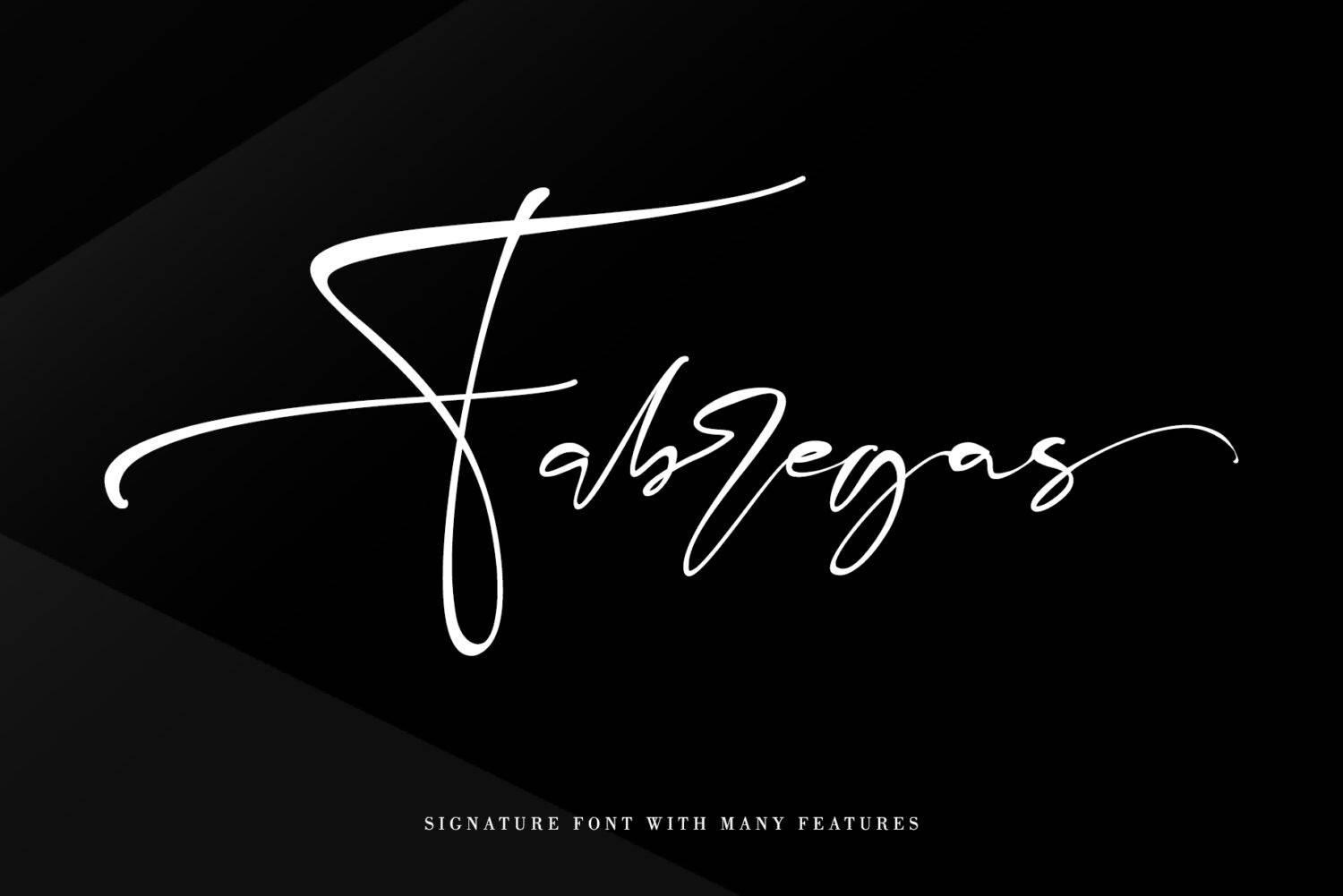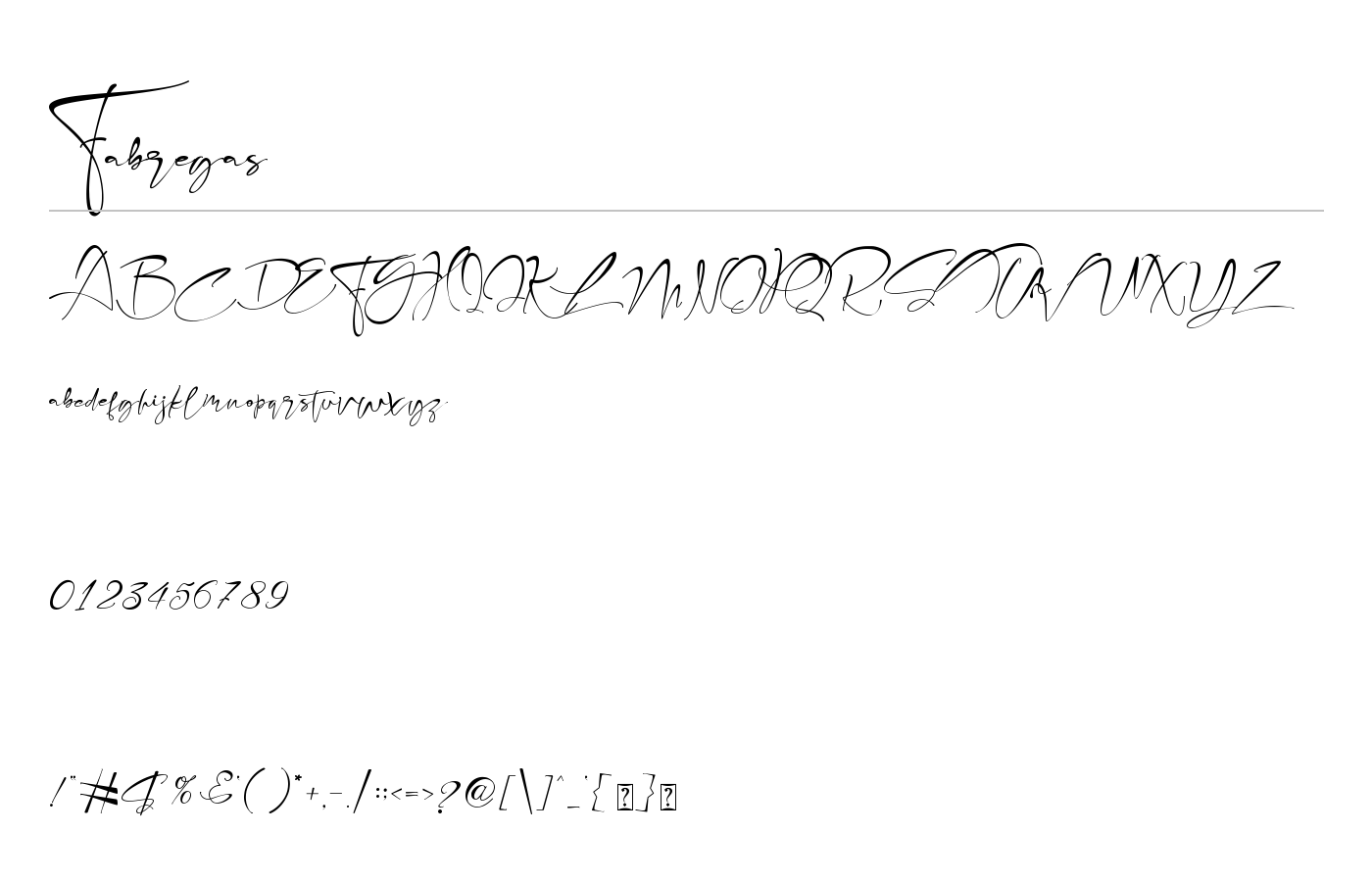
Fabregas is a delicate, elegant script font characterized by its thin, flowing strokes and refined curves, giving it a hand-drawn, whimsical feel. Its high contrast and airy letterforms make it ideal for sophisticated branding, wedding invitations, and stylish editorial headings where a touch of graceful personality is desired. This font works beautifully in designs that seek to convey elegance and creativity with a modern yet personal touch.
Fabregas Font
About Fabregas Font